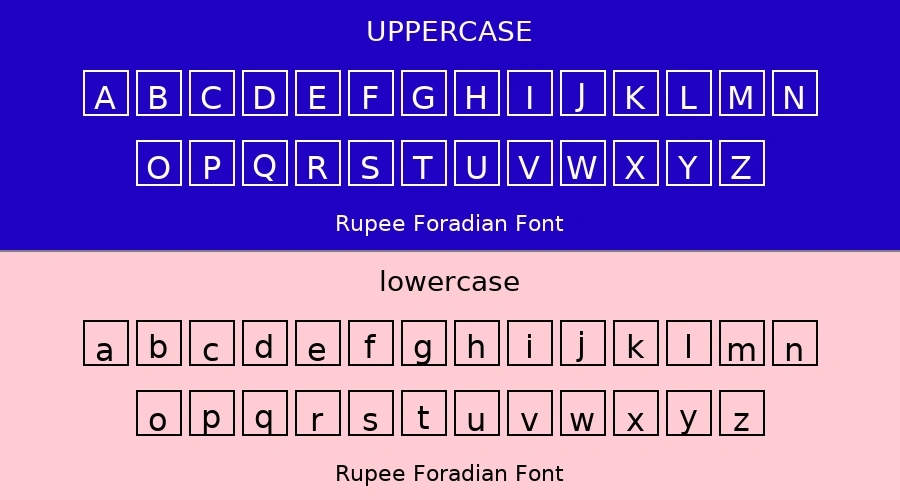
About Rupee Foradian Font
When typographic excellence matters most, Rupee Foradian Font delivers through its thoughtful blend of rhythmic patterns and technical excellence. Specially crafted for poster titles, it offers the consistency and system compatibility required for sophisticated design work. Every detail serves a purpose.
The character set showcases thoughtful details like tapered strokes alongside functional proportional figures. This proves especially valuable in book chapters, where output consistency directly influences results. Particular attention was paid to shoulder shape and lifestyle alignment during development.